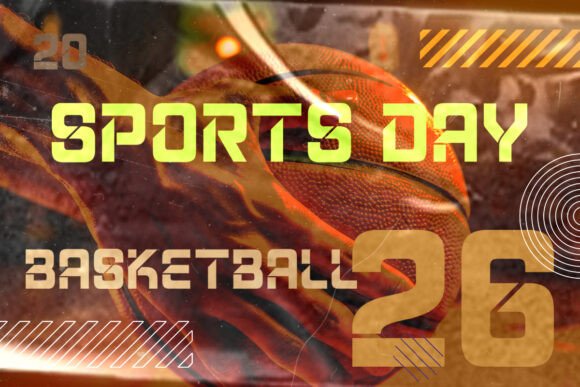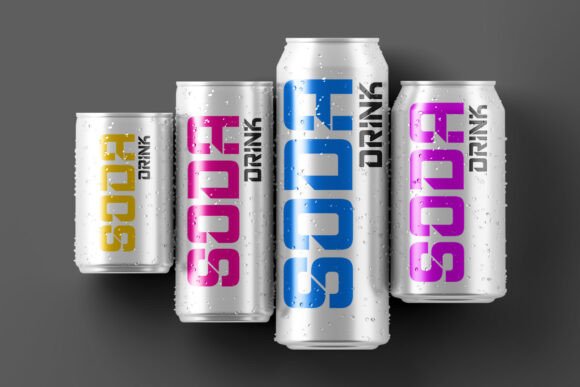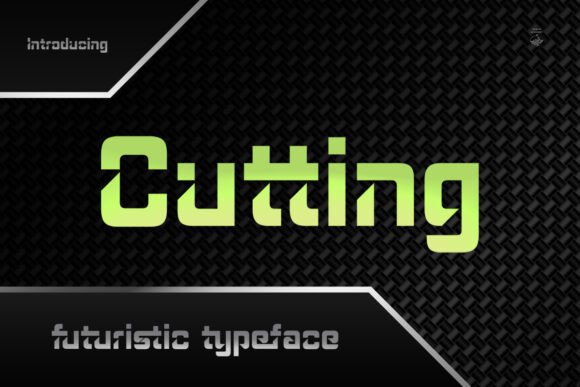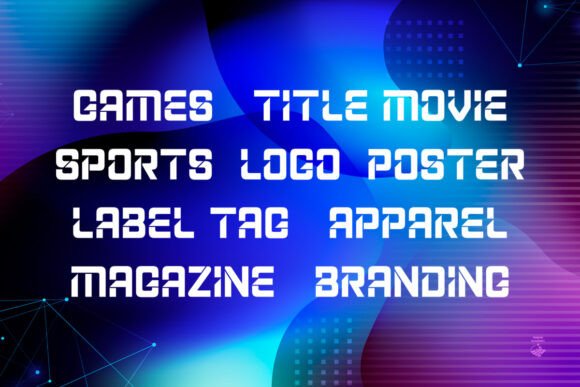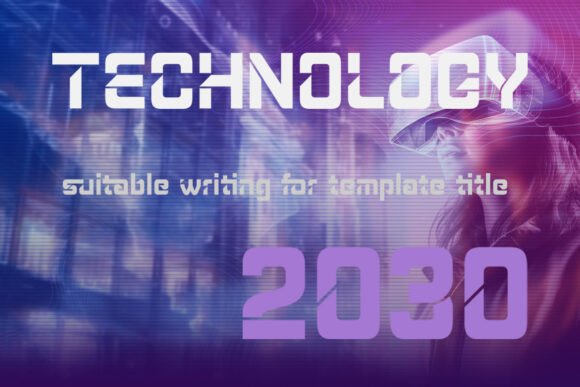
Introducing Cutting Font: The Ultimate Choice for Modern Designs
In the world of typography, fonts play a crucial role in making or breaking a design. With the ever-evolving trends and styles, designers are constantly on the lookout for unique and versatile fonts that can elevate their creations. If you’re a designer, craftsperson, or simply a DIY enthusiast, you’re in luck! Today, we’re excited to introduce you to Cutting Font, a futuristic, elegant, and athletic handcrafted font that’s about to take your designs to the next level.
What is Cutting Font?
Cutting Font is a meticulously crafted typeface that exudes a sense of modernity, sophistication, and dynamism. This stunning font is designed to provide a unique, beautiful, and modern look that’s perfect for a wide range of applications. Whether you’re working on corporate branding, movie titles, magazine covers, logos, or template titles, Cutting Font is the ideal choice.
Key Features of Cutting Font
- Upper and Lower Case Letters: Cutting Font comes with a comprehensive set of upper and lower case letters, ensuring that you have all the characters you need to create stunning text-based designs.
- Punctuation: The font also includes a range of punctuation marks, making it easy to add emphasis and clarity to your text.
- Elegant and Athletic Design: The handcrafted design of Cutting Font strikes the perfect balance between elegance and athleticism, making it perfect for sports teams, corporate brands, and more.
- Versatile: This font is incredibly versatile, allowing you to use it for a wide range of applications, from logos and branding to magazine covers and movie titles.
Who Can Benefit from Cutting Font?
Cutting Font is an excellent choice for a variety of designers, craftspersons, and DIY enthusiasts, including:
- Graphic Designers: Whether you’re working on a client’s branding project or creating a stunning visual identity, Cutting Font is an excellent addition to your font library.
- Movie and TV Producers: Add a touch of sophistication and glamour to your movie titles, TV show promos, or trailers with Cutting Font.
- Magazine and Newspaper Publishers: Use Cutting Font to create eye-catching headlines, titles, and captions that will make your publication stand out.
- Sports Teams and Coaches: Create a strong, athletic brand identity with Cutting Font, perfect for team logos, jerseys, and promotional materials.
- Crafters and DIY Enthusiasts: Add a professional touch to your handmade products, such as customized t-shirts, mugs, or signs, with Cutting Font.
Why Choose Cutting Font?
With so many fonts available, why choose Cutting Font? Here are just a few reasons:
- Unique and Exclusive: Cutting Font offers a distinctive look that’s sure to set you apart from the crowd.
- High-Quality Design: The handcrafted design ensures that every character is meticulously crafted for maximum impact.